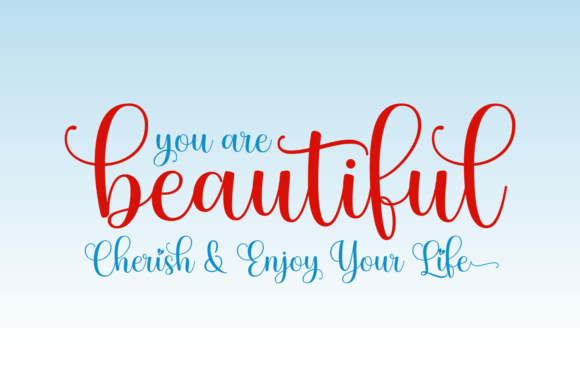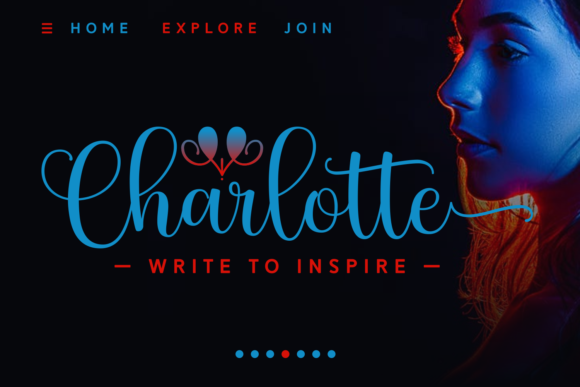
Heart You Font
About Heart You Font
Heart You is a delightful and versatile handwritten font that exudes warmth, romance, and joy. Its rounded and playful appearance adds a touch of charm to your designs, making it a perfect choice for a wide range of creative projects.
The sweetness of Heart You font makes it an excellent option for expressing love, affection, and lightheartedness. Its flexible nature allows you to explore various design possibilities and experiment with different styles. Whether you’re working on greeting cards, love notes, scrapbooking, or any other project that aims to evoke positive emotions, Heart You’s inviting and jolly demeanor will help you achieve your desired effect.
The font’s adaptability lends itself well to capturing the essence of various occasions, such as anniversaries, birthdays, weddings, and more. Its versatility enables you to create visually appealing designs that resonate with your intended audience, making each project a unique and heartfelt work of art.
Exploring Heart You’s endless variations will be a joyful and creative endeavor. You can experiment with different sizes, colors, and embellishments to create eye-catching and captivating designs. Whether you’re a seasoned designer or just starting out, Heart You offers an approachable and enjoyable way to add a personalized and artistic touch to your creations.
Incorporate Heart You into your design projects to infuse them with sweetness, warmth, and flexibility. This font’s all-around appeal and endless variations will enable you to craft captivating works of art that leave a lasting impression and bring smiles to the faces of those who engage with your designs.